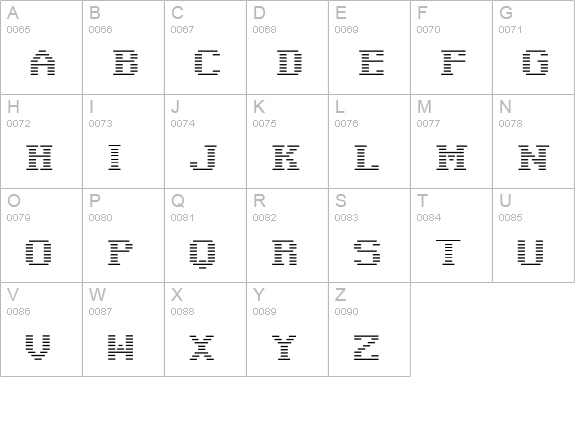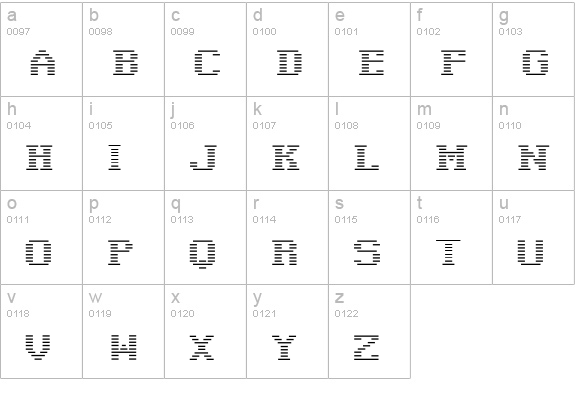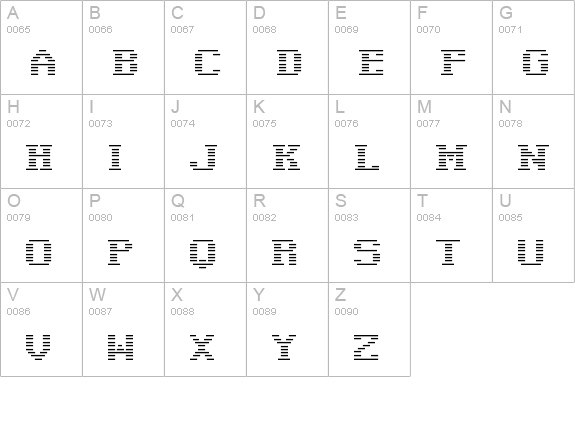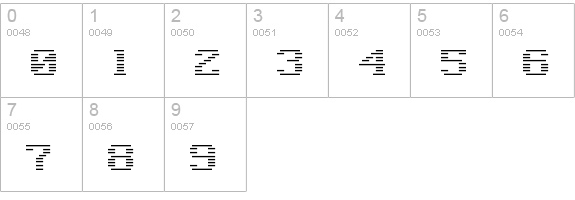
Negative Tuning Font Details
Negative Tuning font is a modern and edgy typeface that exudes a sense of sophistication and boldness. Its sleek lines and sharp angles give it a unique and futuristic look, making it perfect for projects that require a touch of avant-garde flair. Negative Tuning font is versatile and can be used for a variety of design purposes, from branding to editorial layouts. The font's distinctive character set includes uppercase and lowercase letters, numbers, and punctuation marks, all meticulously crafted to ensure a cohesive and seamless look. Its clean and minimalist design allows for easy readability while still making a strong visual impact. Best of all, Negative Tuning font is available for free download at FontsMarket.com. Whether you're a designer looking to add a modern touch to your projects or a creative individual searching for a unique typeface, Negative Tuning font is the perfect choice. Download it today and unleash your creativity with this stunning font!